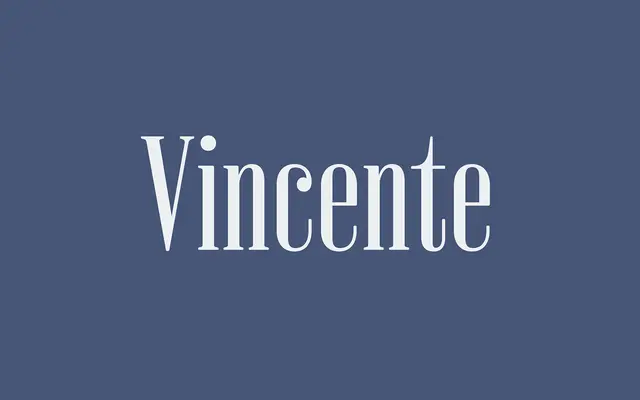
Vincente specimen from Dharma Type
A condensed Didone serif in six weights, drawing on vintage ironwork and antique botanical illustration for its formal warmth.
Built on high-contrast Didone proportions with condensed letterforms, Vincente brings a degree of handcrafted character through details like the curved tail of the 'y'. The six-weight family covers Light through ExtraBold and supports a broad range of Latin-based languages. Suited to editorial layouts, branding and display settings where a refined but slightly antique personality is wanted.
Explicitly Didone-inspired with high contrast between thick and thin strokes and condensed proportions; the vintage ironwork and botanical illustration references align with 19th-century Didone display traditions.